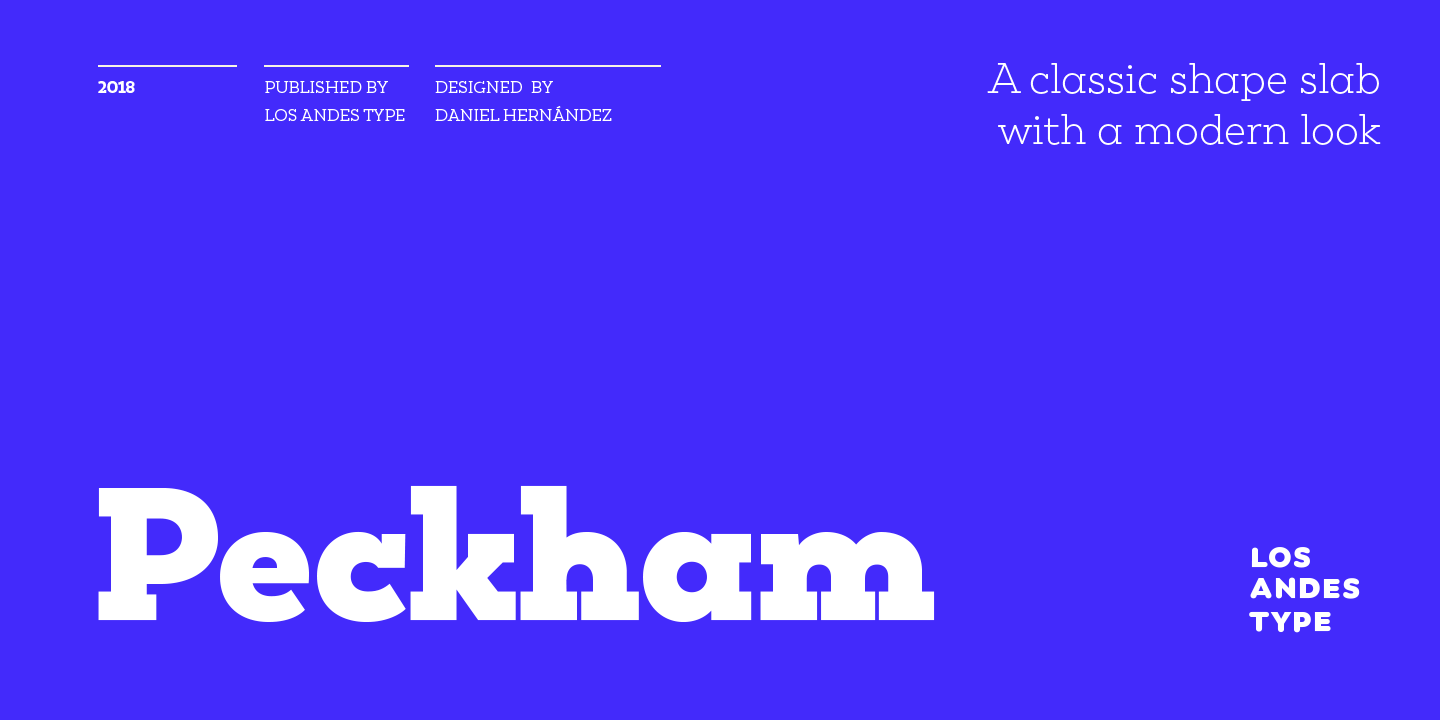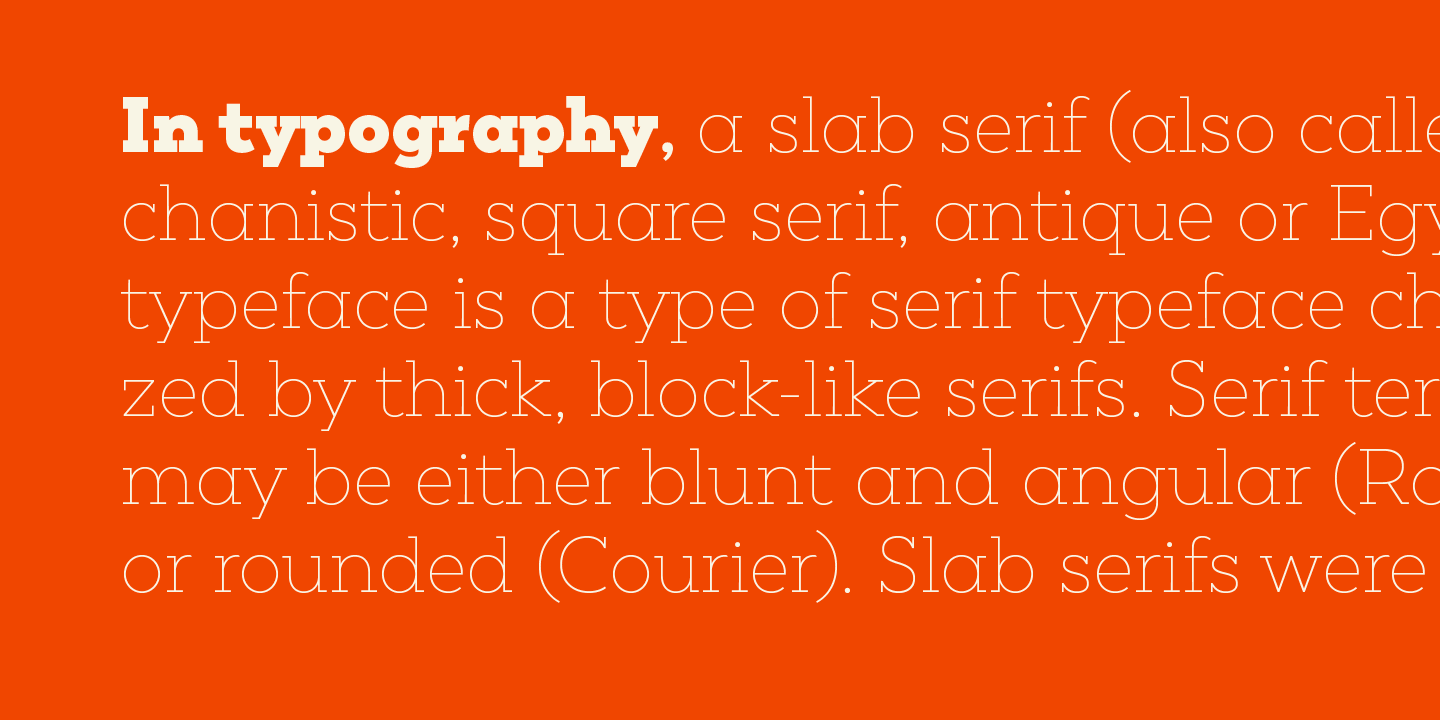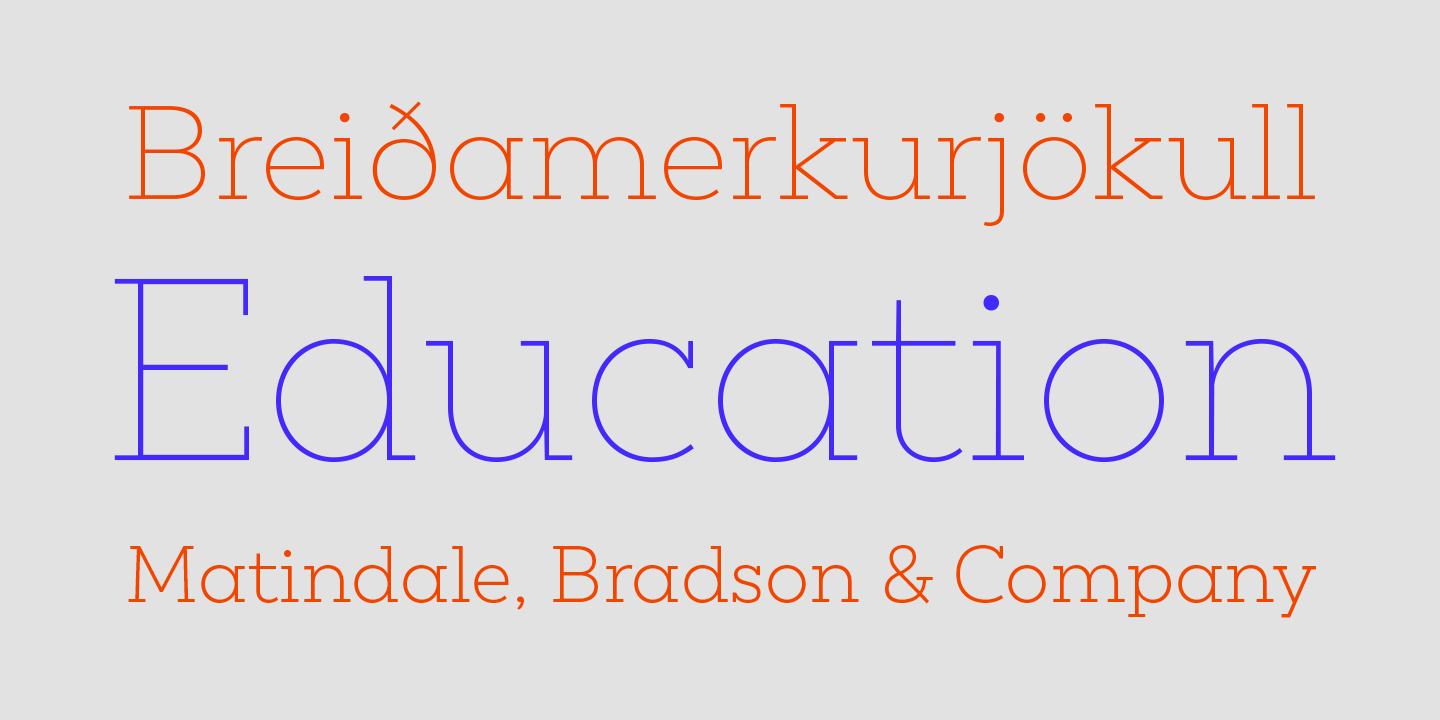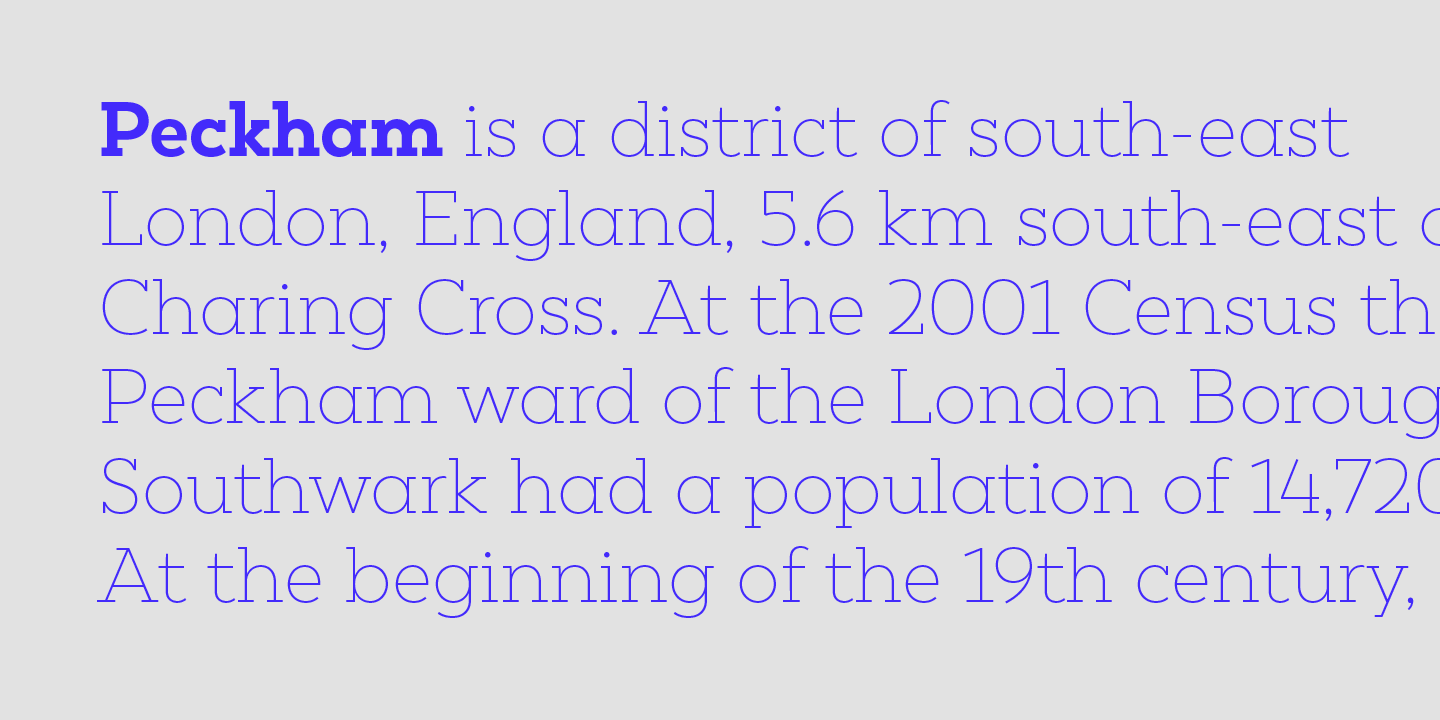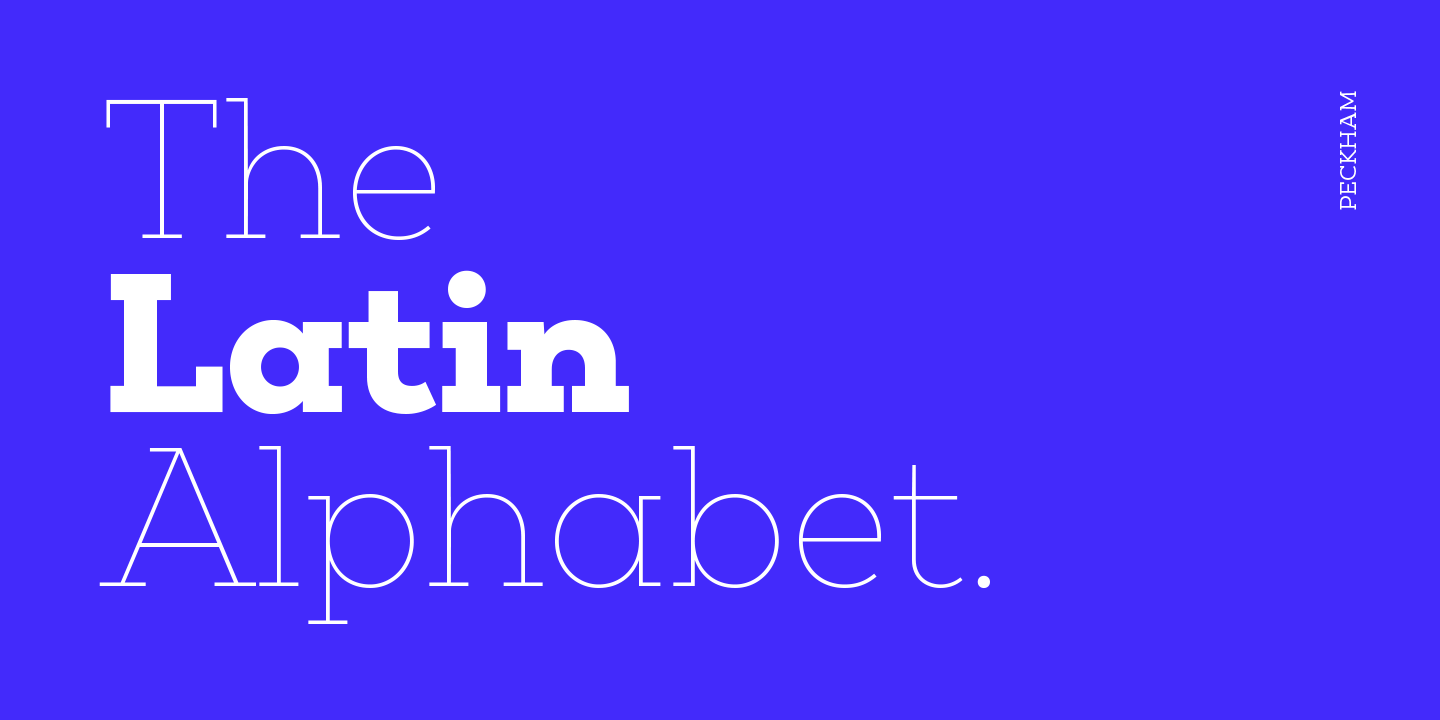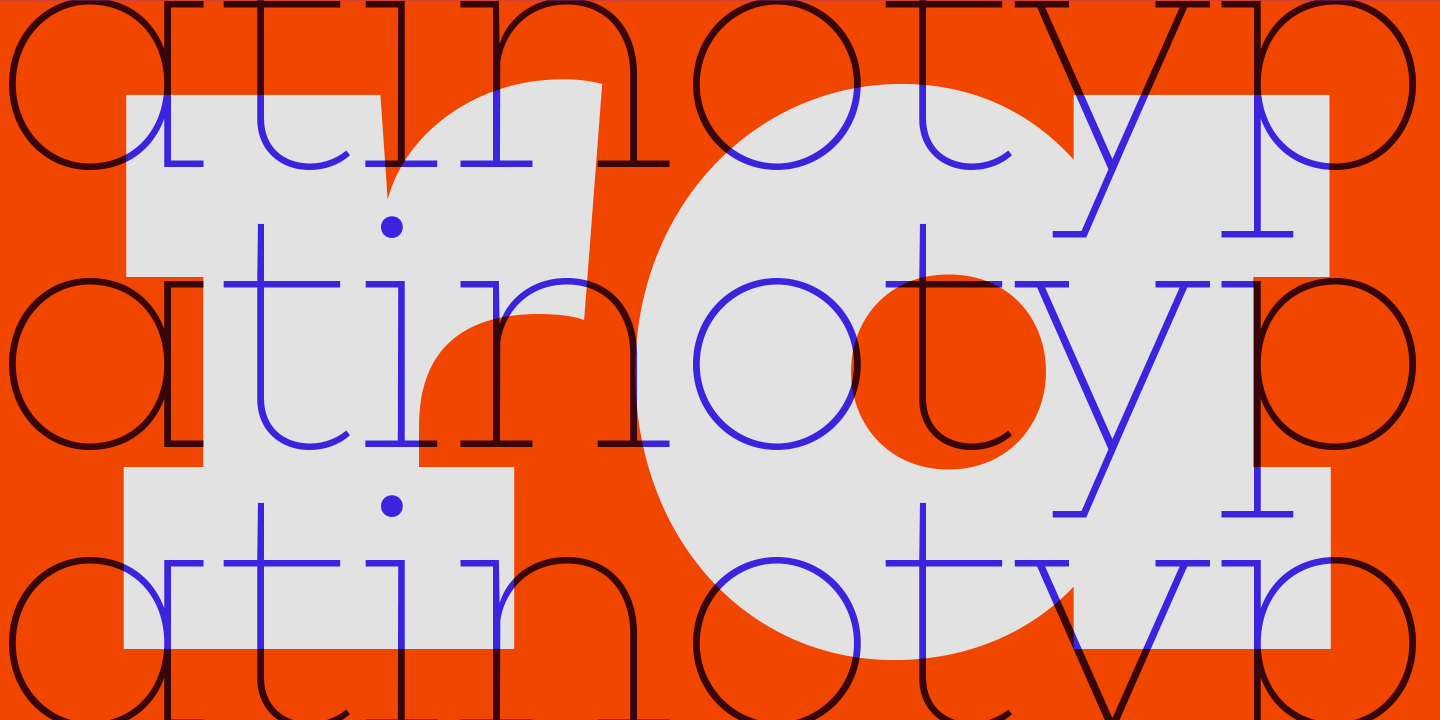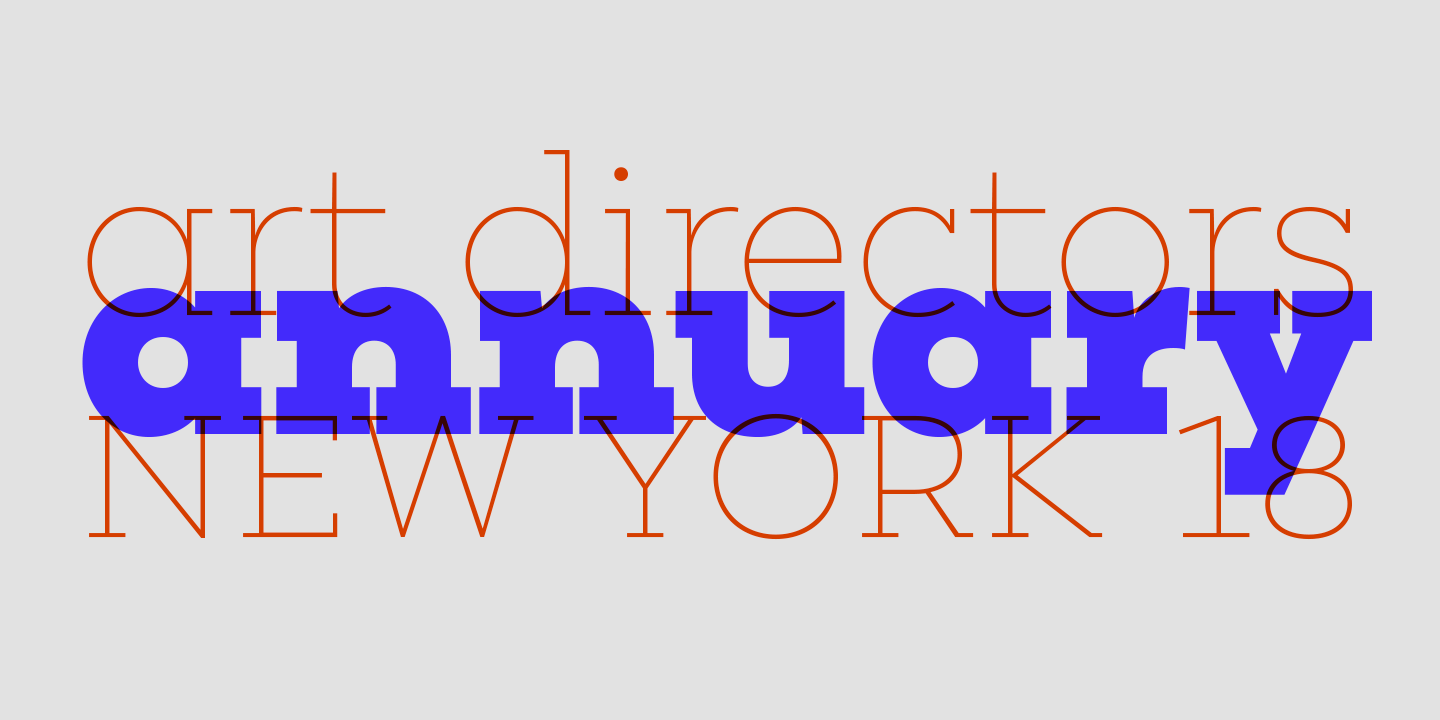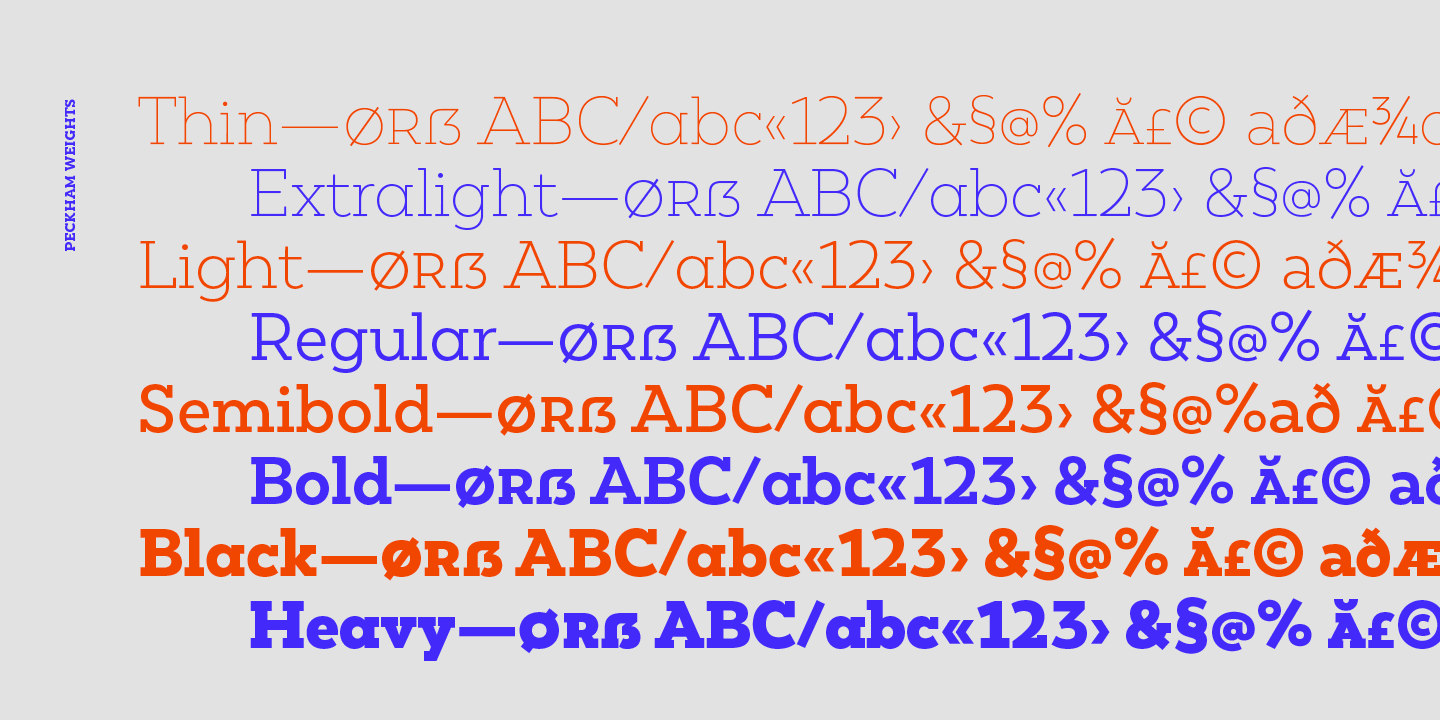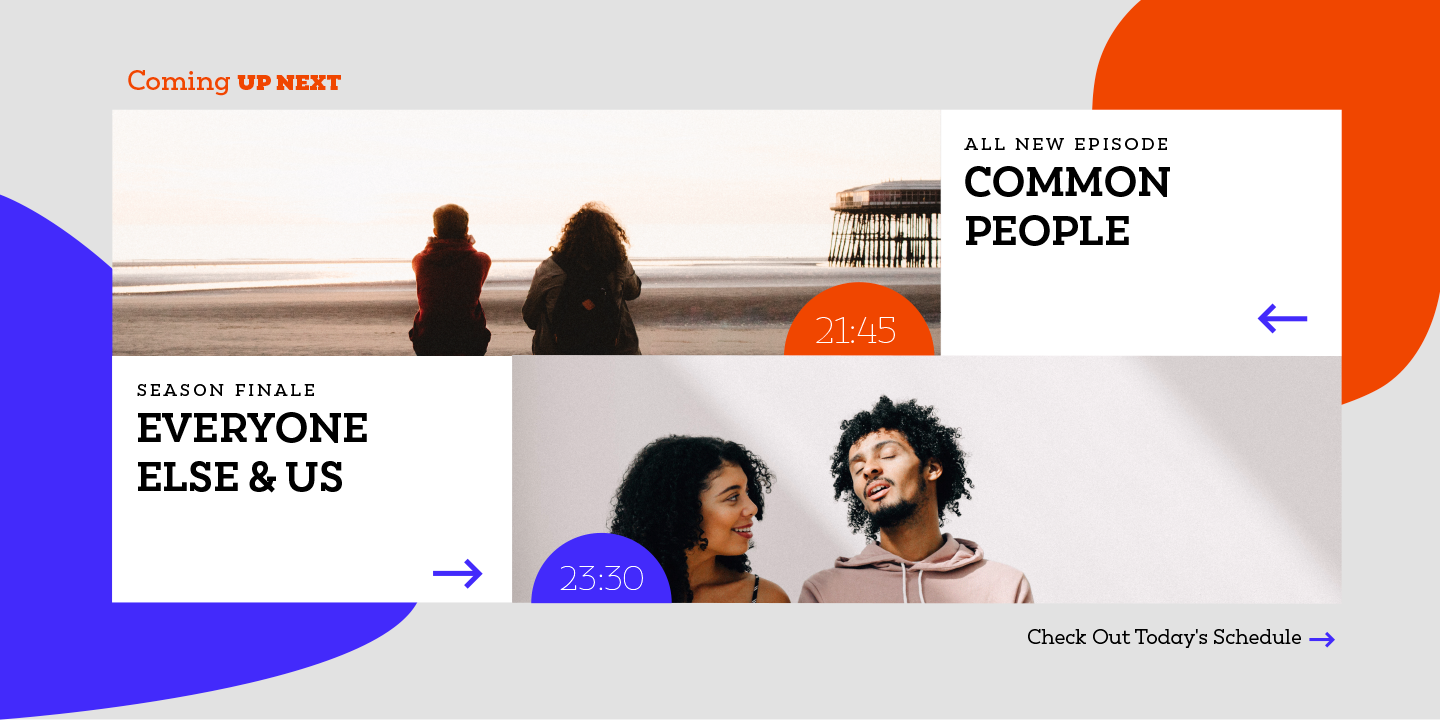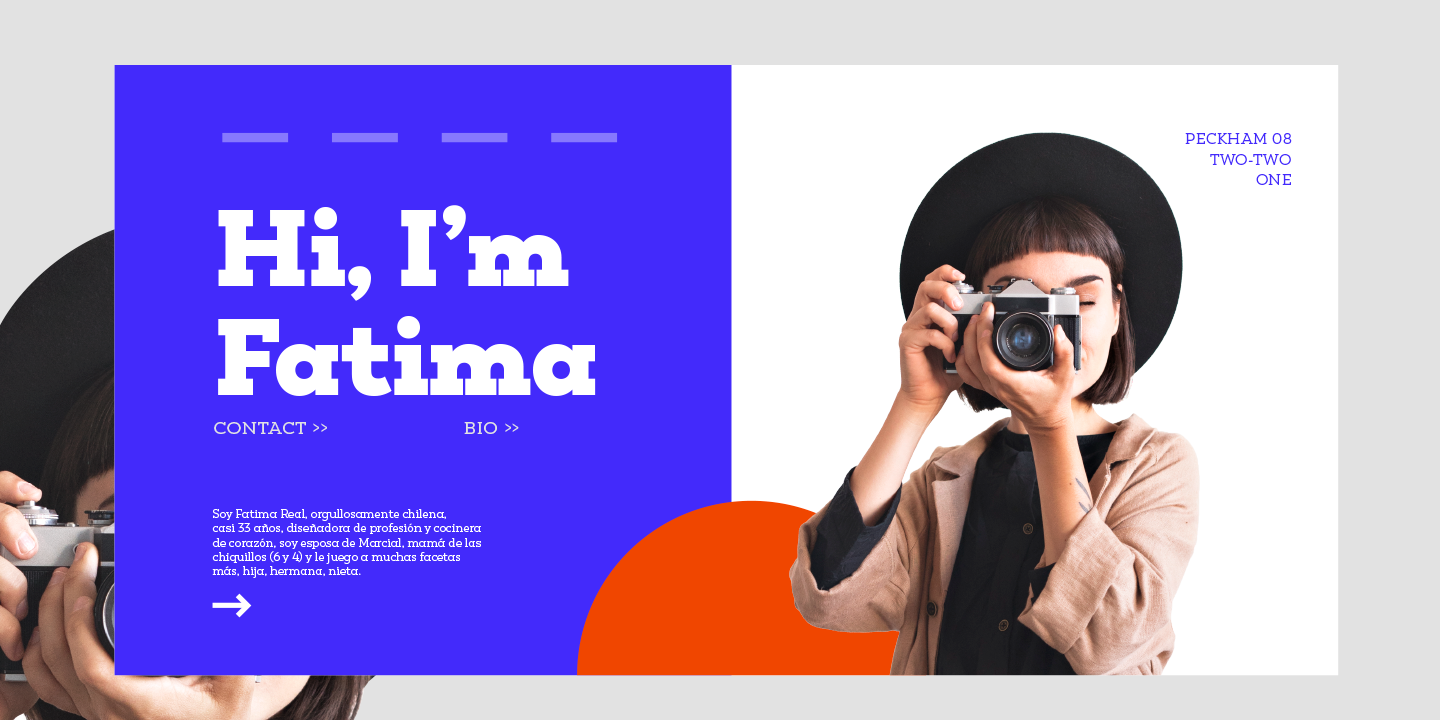
Peckham, designed by Daniel Hernández, is a contemporary and versatile slab serif of 8 weights (and matching italics)—ranging from an elegant Thin to a heavy Black—with strong serifs that give it a playful look while preserving the overall geometric structure of the font.
Peckham comes with the standard Latinotype set of 395 glyphs resulting in a language support for 94% of the languages using the Latin alphabet. The font also includes stylistic alternates (A, R, Y, a) which provides extra versatility.
The name of the font reminds us of the city that witnessed the birth of Vincent Figgins (1766). Figgins became known as the type designer who first included slab serif fonts in a commercial catalog. Peckham pays homage to classic typefaces yet looks very contemporary.
OpenType features: Ligatures, Small Caps, Alternates, Superscript